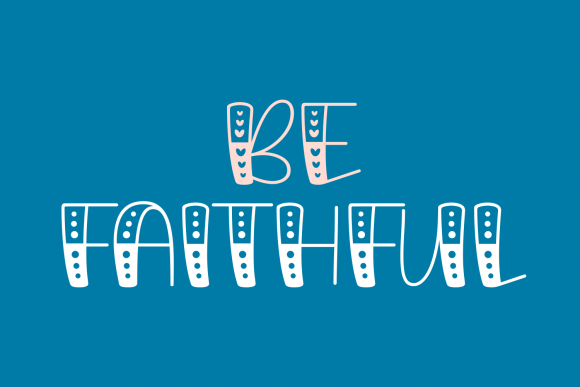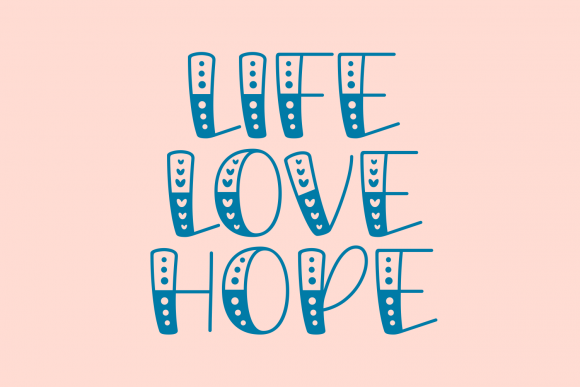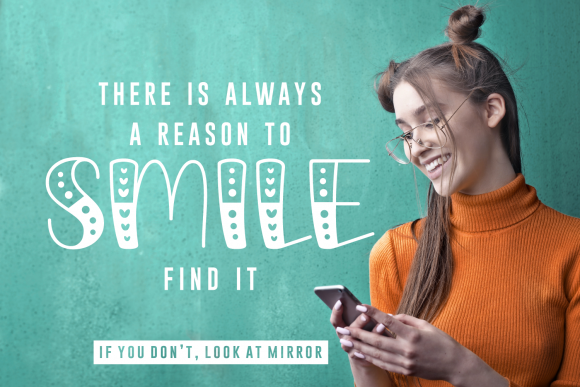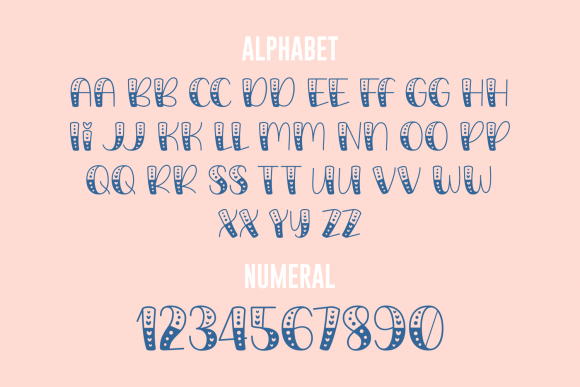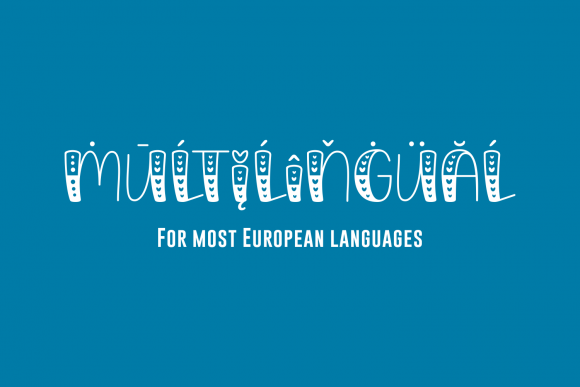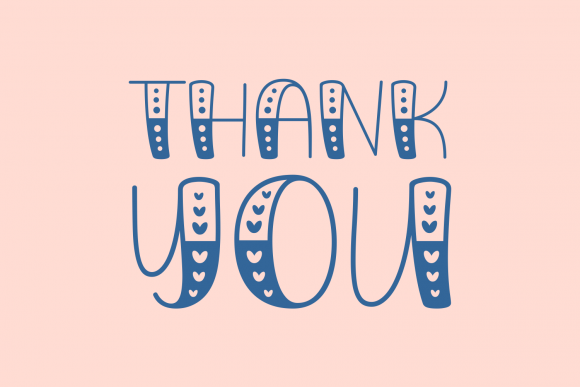
Introduction to Palace Love Font
Have you ever been working on a creative project, pouring your heart and soul into it, only to feel like something is missing? You know, that spark that sets your design apart from the rest? For many designers, finding the perfect font is just that missing piece. And that’s where the Palace Love Font comes in – a cool and unique display font that’s sure to add a touch of magic to your next project.
With its transparent background and elegant style, the Palace Love Font is perfect for designers looking to elevate their work and make a lasting impression. So why settle for ordinary when you can have extraordinary? Let’s dive into the world of Palace Love Font and discover its secrets to creating truly stunning designs.
Key Features of Palace Love Font
- High-quality, unique font design perfect for creative projects and design resources.
- Comes with a transparent background, allowing for seamless integration into any design.
- Features a large character set, including uppercase and lowercase letters, numbers, and special characters.
- Perfect for use in a variety of design projects, from logos and branding to typography and creative graphics.
Honest Review: Palace Love Font
I recently stumbled upon the Palace Love Font and was excited to give it a try in my creative project. As a designer, I’m always on the lookout for high-quality design resources to elevate my work. This font definitely delivered.
- What works well: ✨ The Palace Love Font has a unique, whimsical feel to it that adds a touch of elegance to any design. I particularly enjoyed using it for a logo project, where its playful yet sophisticated vibe really shone through.
- ⚠️ The font may not be suitable for all projects, particularly those requiring a more formal tone. The Palace Love Font’s playful feel may not be the best fit for corporate or serious designs.
Overall, I was impressed with the Palace Love Font’s quality and versatility. It’s definitely a valuable addition to any designer’s toolkit, and I look forward to using it in future creative projects.
The Palace Love Font is perfect for various creative projects, such as:
- Wedding invitations and decorations
- Personalized greeting cards